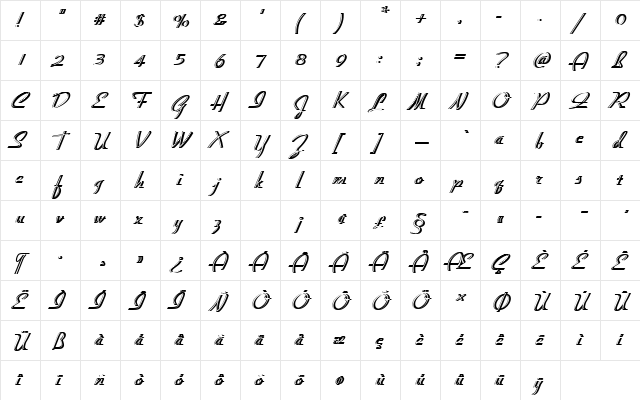
GilliesGotDLigRe1 Regular
Design Context for GilliesGotDLigRe1 Typeface
GilliesGotDLigRe1 is a composed and adaptable typeface that performs quietly and consistently across a wide range of design contexts.